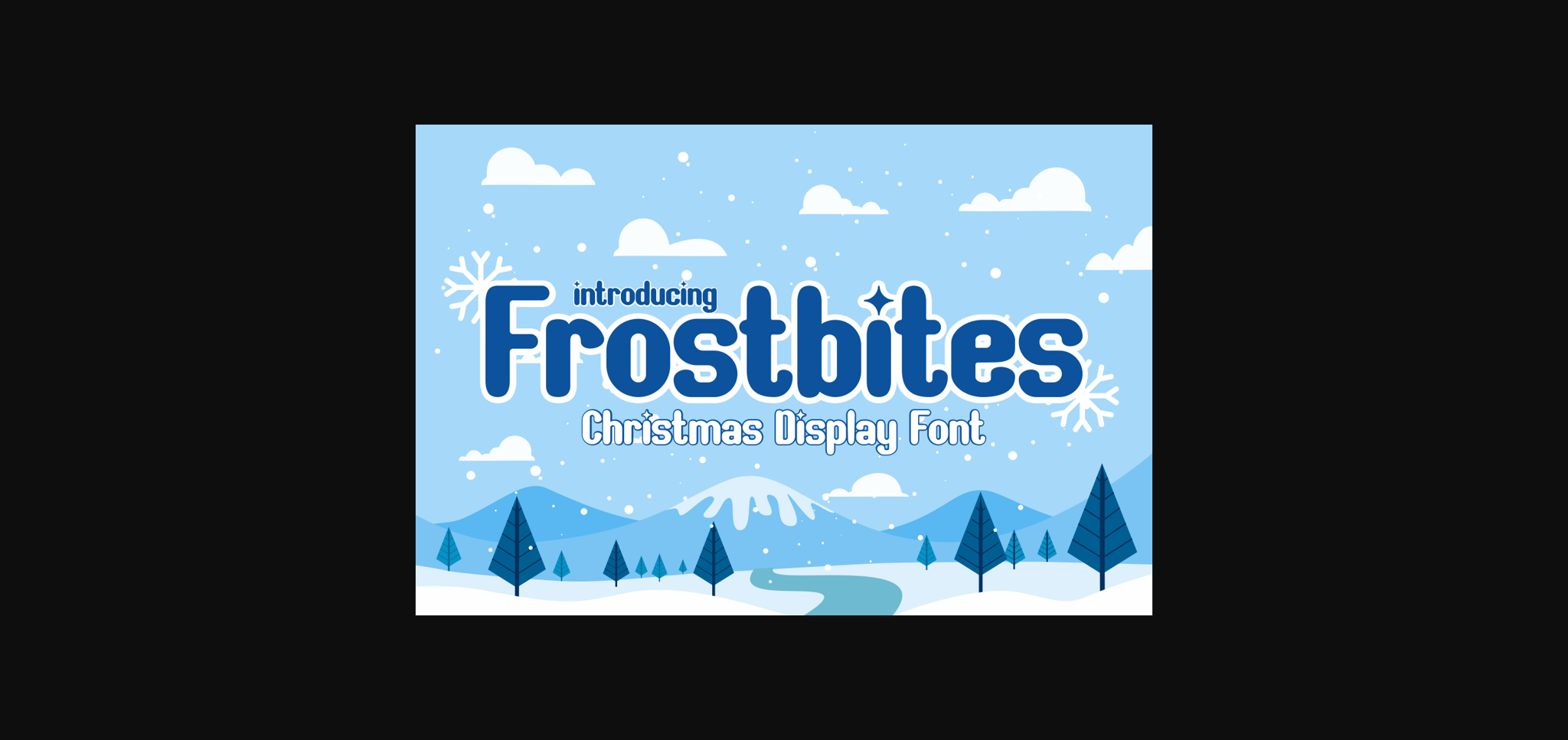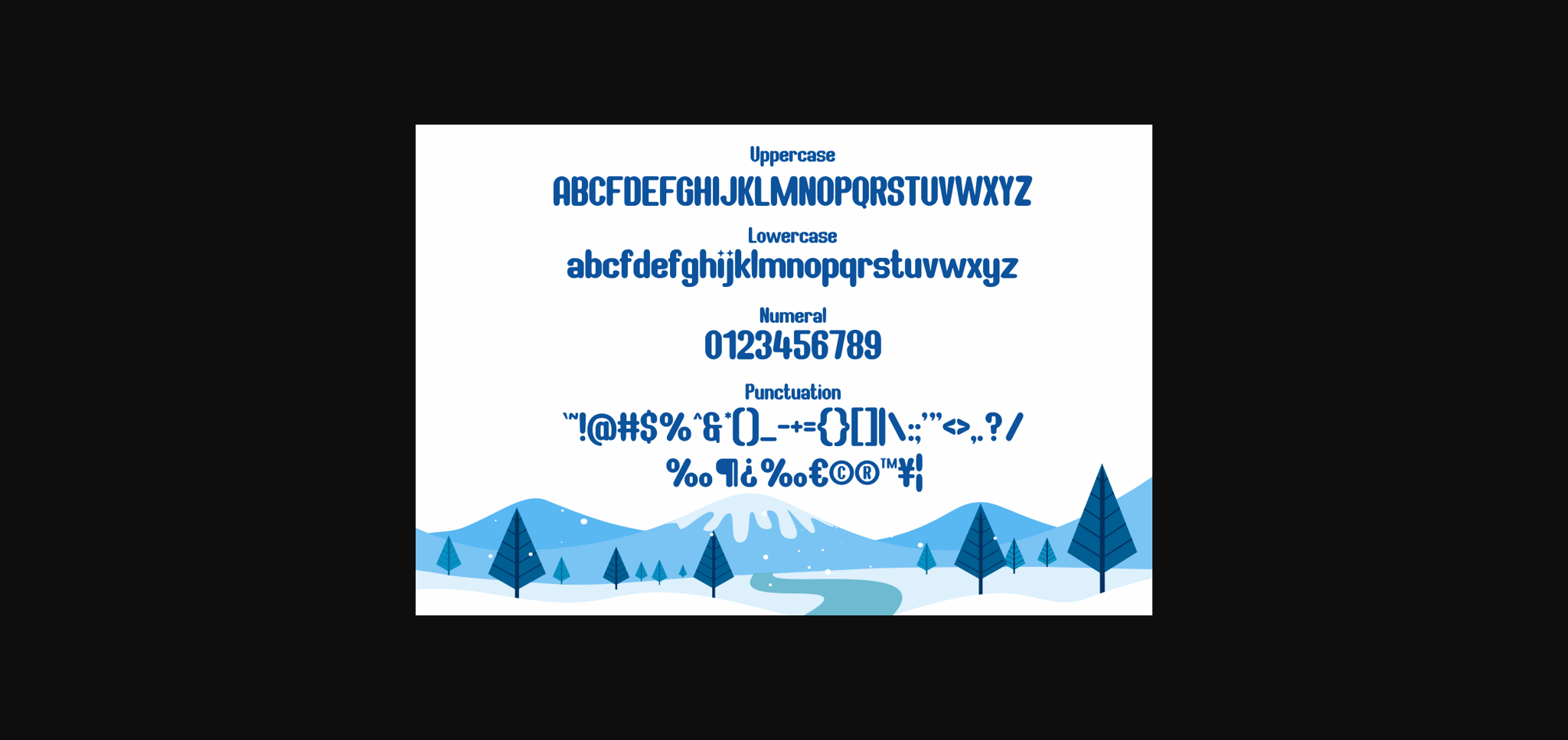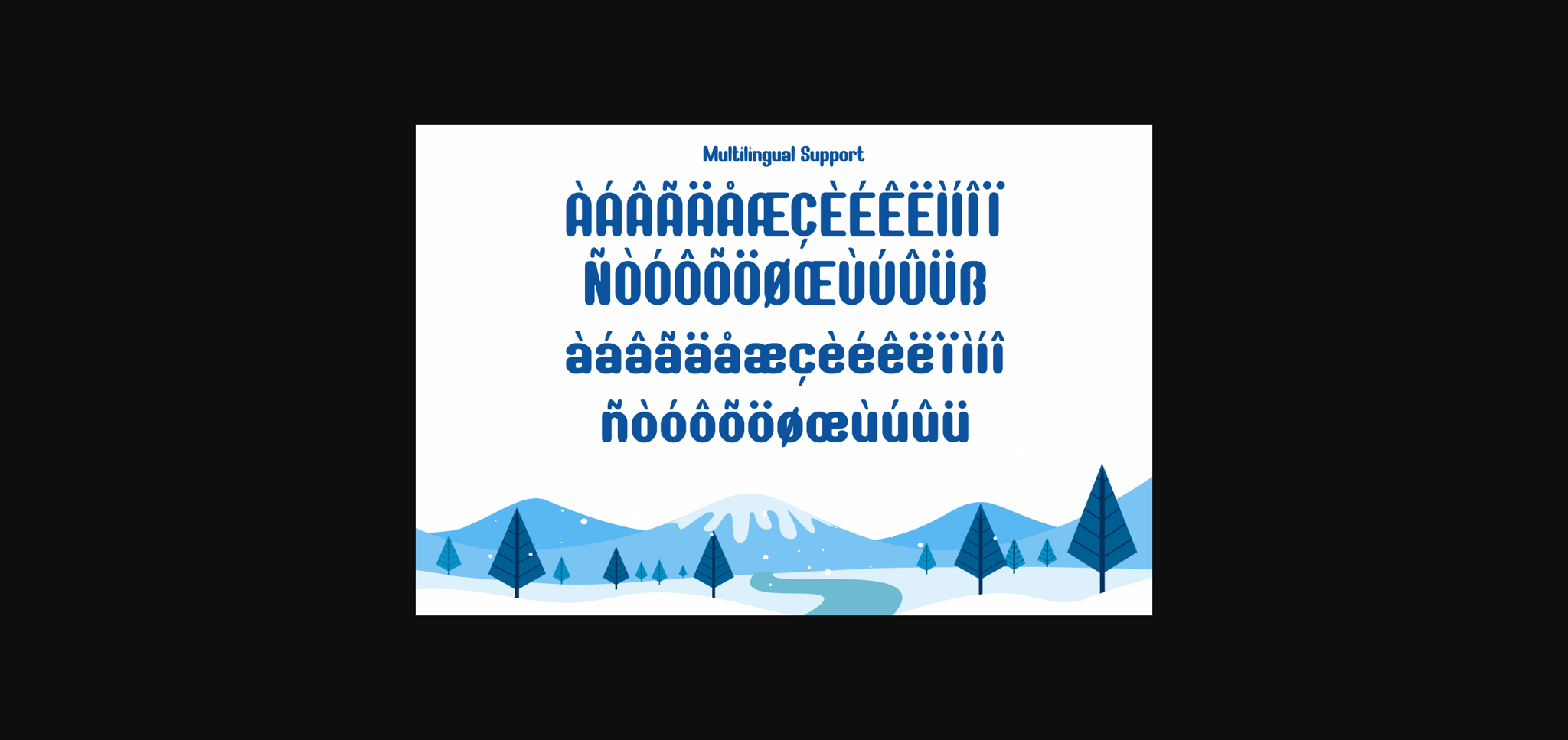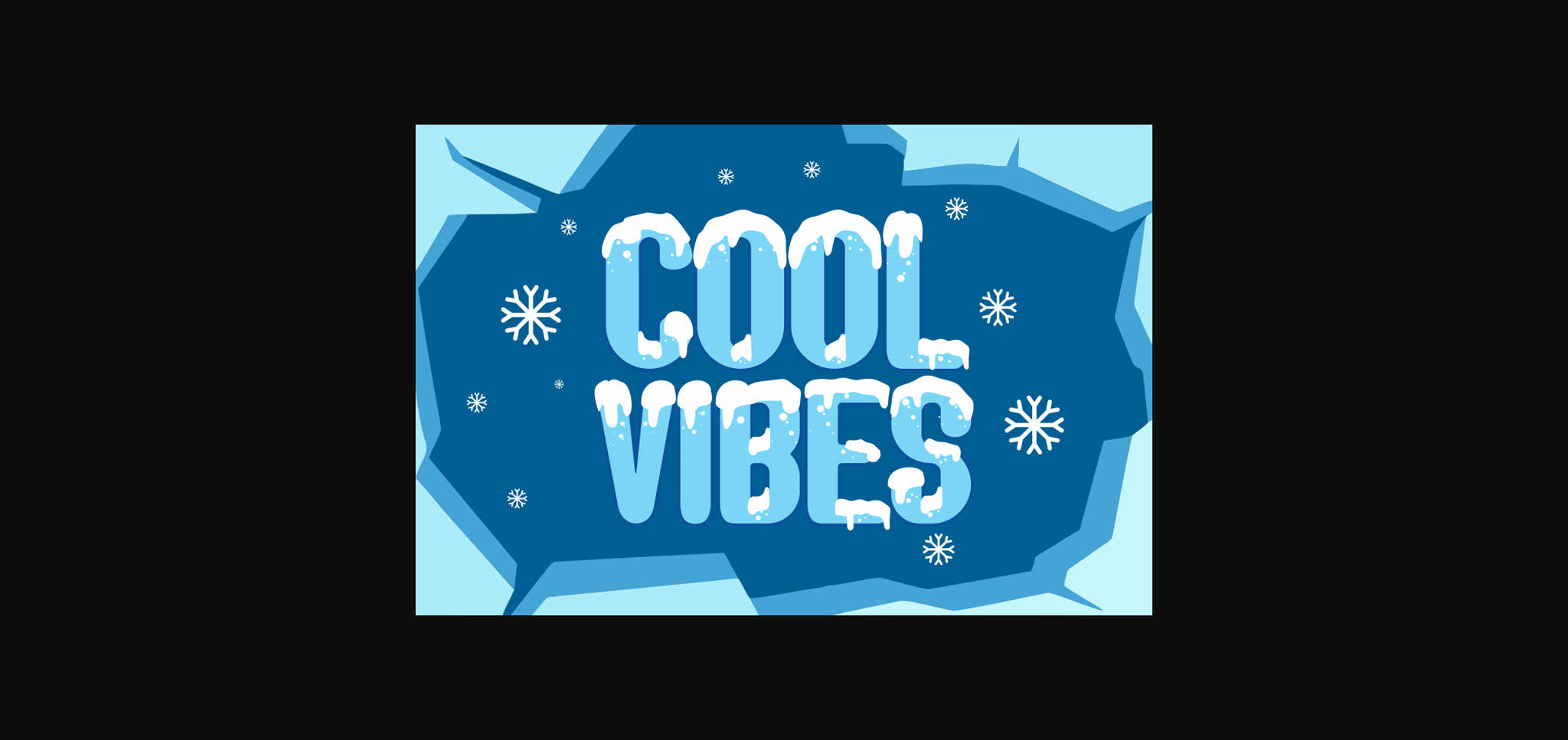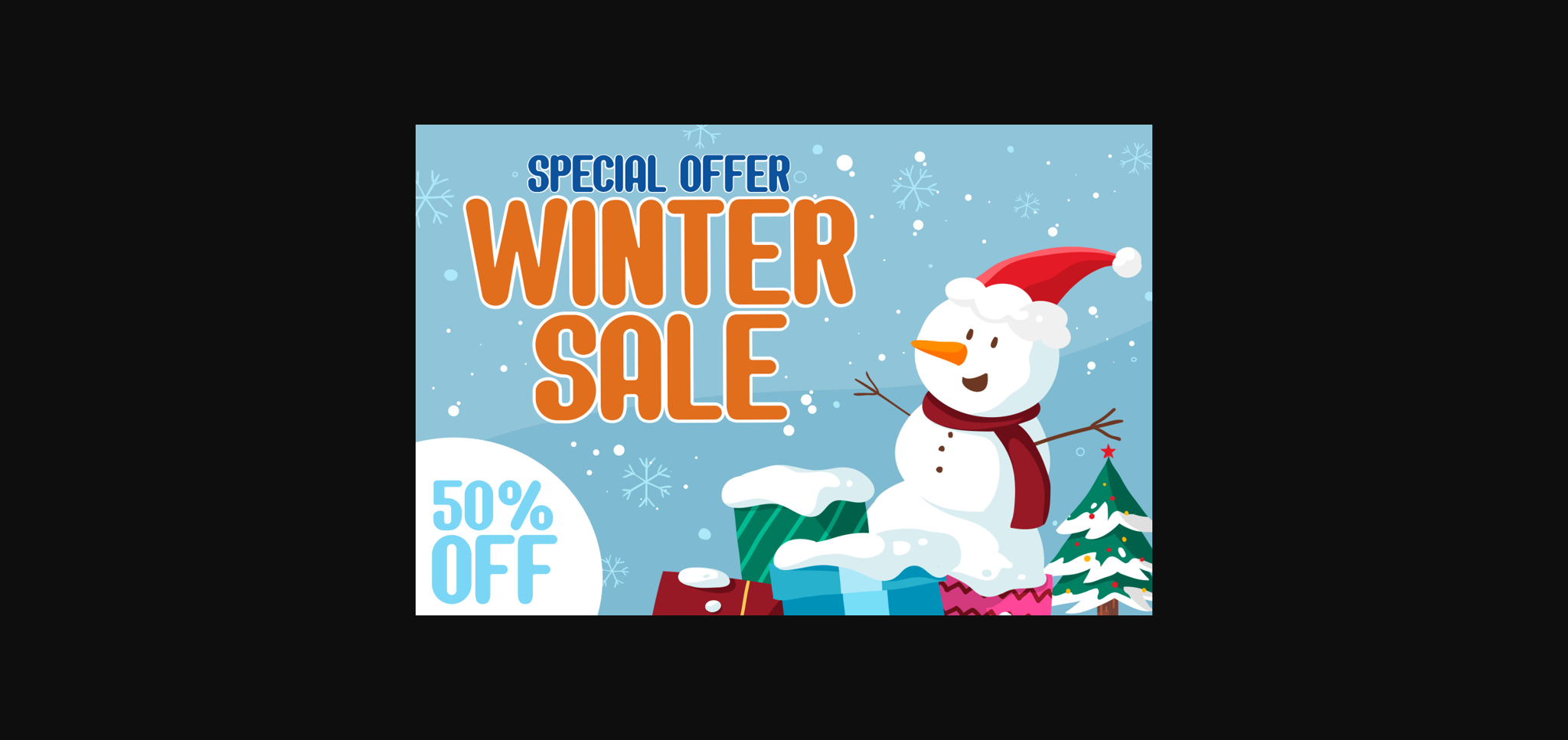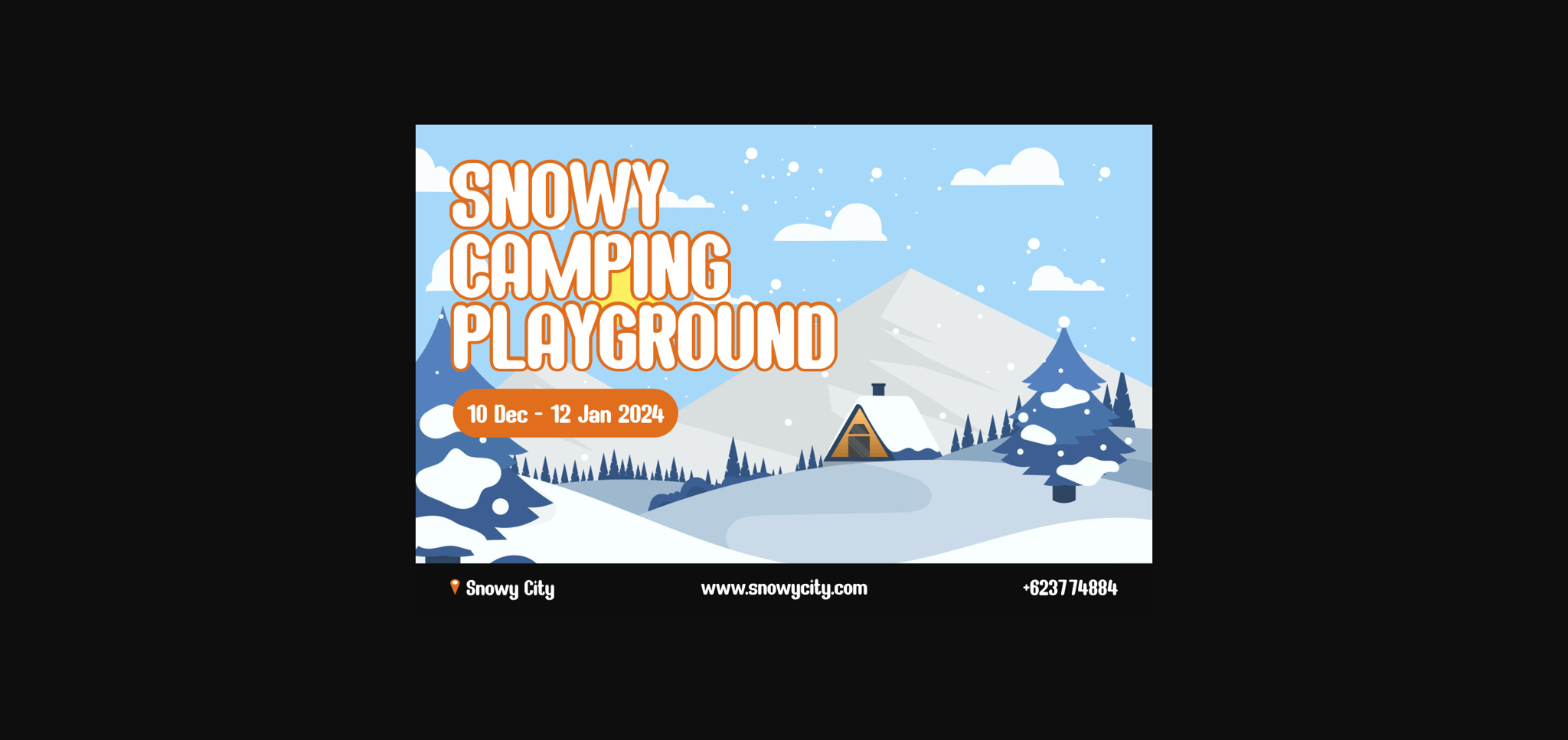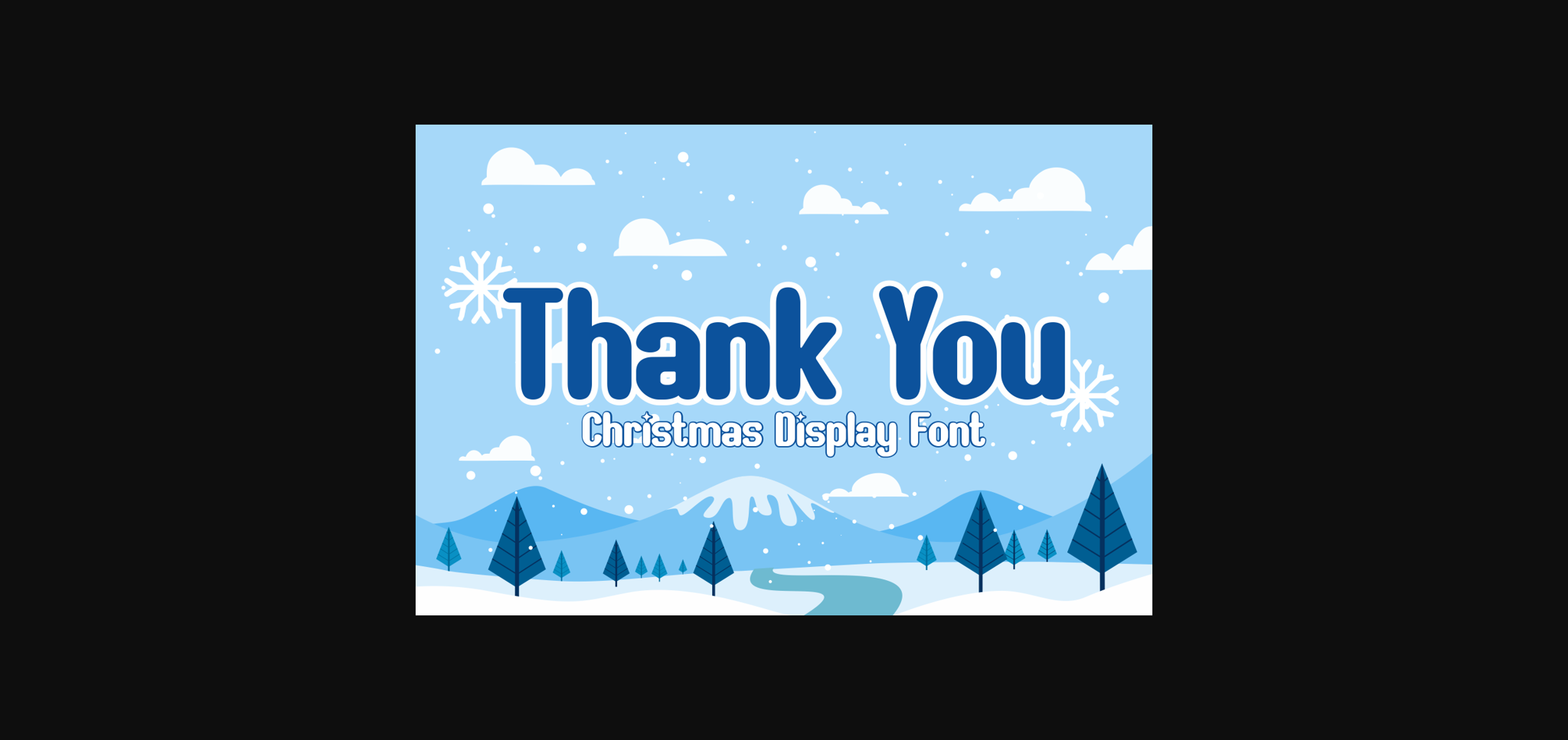
HomeSans Serif FontsFrostbites Font Sans Serif Fonts Frostbites Font FacebookXPinterestWhatsApp 1 of 9 ... Frostbites Font Poster 2... Frostbites Font Poster 3... Frostbites Font Poster 4... Frostbites Font Poster 5... Frostbites Font Poster 6... Frostbites Font Poster 7... Frostbites Font Poster 8... Frostbites Font Poster 9... About Frostbites Font This font is specifically designed to create a Christmas atmosphere and mood. It is often used in graphic design, greeting cards, posters, and various other visual elements related to the celebration of Christmas. DOWNLOAD NOW People also explored Pink Fight Font Attaya Font Cyber Mandala Rainbow Font Milky Font Marigold Font Shantine Font Big Bang! Font Spooky Font 322 0 TagsFrostbites Font Previous articleStarletique FontNext articleHandmade Font LEAVE A REPLY Cancel reply Comment: Please enter your comment! Name:* Please enter your name here Email:* You have entered an incorrect email address! Please enter your email address here Website: Save my name, email, and website in this browser for the next time I comment. Personal Use Free Stone Cold Personal Use Free Read more about this font Letter Clips Personal Use Free Read more about this font Bukan Personal Use Free Read more about this font Alista Font Personal Use Free Read more about this font BLOG Free Fonts Risk: Why Free Fonts Can Be Dangerous for Designers Free Fonts Risk: Why Free Fonts Can Be Dangerous for Designers Using free fonts is a common practice in web and graphic design. However, the... Where to Buy American Fonts Online in 2024 Transform Your Website: Elevate Your Typography with 7 Best Web Font Generators Top 10 Handwritten Fonts That Elevate Your Designs